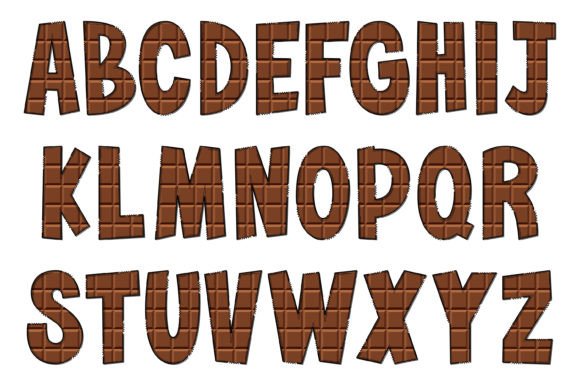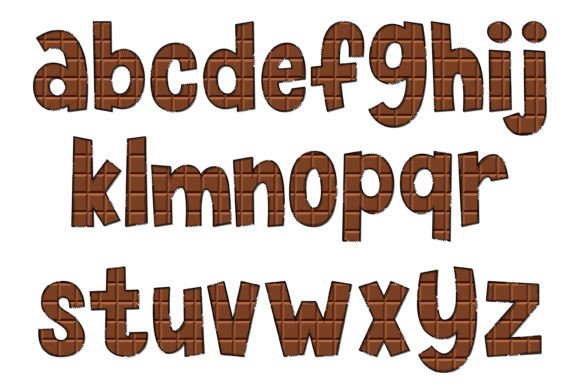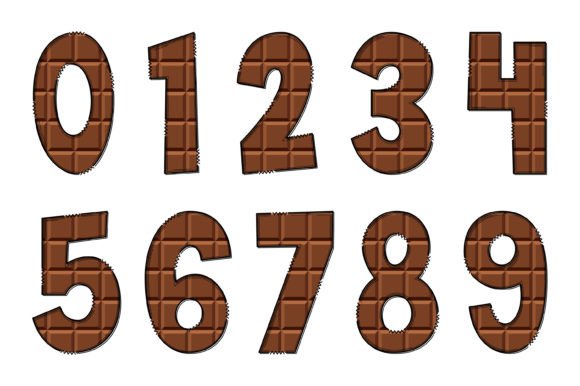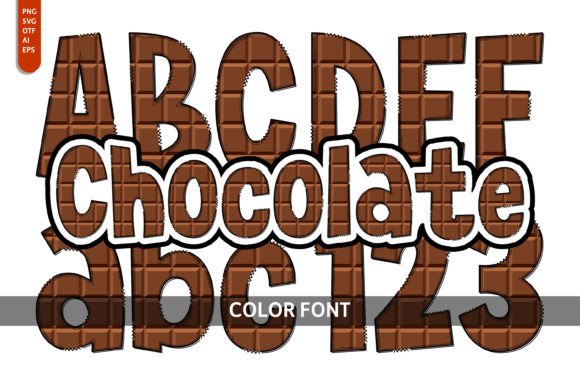
Introducing Chocolate Font: The Sweetest Addition to Your Design Collection
Are you looking for a font that can add a dash of fun and excitement to your designs? Look no further than Chocolate Font, a delightful and captivating color font with a dessert theme that’s sure to bring the joy and deliciousness of desserts to your projects. With its vibrant colors and playful details, this font is the perfect choice for designers and crafters who want to create a truly mouthwatering experience for their viewers.
A Deliciously Versatile Font
Chocolate Font is a versatile and playful font that’s perfect for a variety of applications, including branding materials, party invitations, menu designs, and social media graphics. Whether you’re designing for a bakery, a restaurant, or a dessert-themed event, this font is sure to add a touch of sweetness and whimsy to your project. Its unique blend of vibrant colors and playful details makes it a standout choice for any design project that needs a little extra something special.
Bringing Joy and Whimsy to Your Designs
So why choose Chocolate Font for your next design project? For starters, its vibrant colors and playful details are sure to capture the attention of your viewers and leave a lasting impression. Plus, its dessert theme is perfect for designers and crafters who want to add a touch of fun and excitement to their work. Whether you’re designing for a client or working on a personal project, Chocolate Font is a great way to add some personality and whimsy to your designs.
Tips for Using Chocolate Font
• Use it to add a pop of color to your designs – the vibrant colors of Chocolate Font are sure to grab attention and add visual interest to your work.
• Pair it with complementary fonts – Chocolate Font works well with a range of fonts, so try pairing it with some of your favorite fonts to create a unique and eye-catching design.
• Have fun with it! – Chocolate Font is all about adding a touch of fun and whimsy to your designs, so don’t be afraid to get creative and try new things.
In conclusion, Chocolate Font is a delightful and captivating color font with a dessert theme that’s sure to bring the joy and deliciousness of desserts to your designs. With its vibrant colors and playful details, it’s the perfect choice for designers and crafters who want to add a touch of fun and excitement to their work. Whether you’re designing for a client or working on a personal project, Chocolate Font is a great way to add some personality and whimsy to your designs. So why wait? Try Chocolate Font today and see the sweet results for yourself!
• Vibrant colors and playful details
• Perfect for branding materials, party invitations, menu designs, and social media graphics
So go ahead, indulge in the sweetness of Chocolate Font, and make your designs a treat to behold!